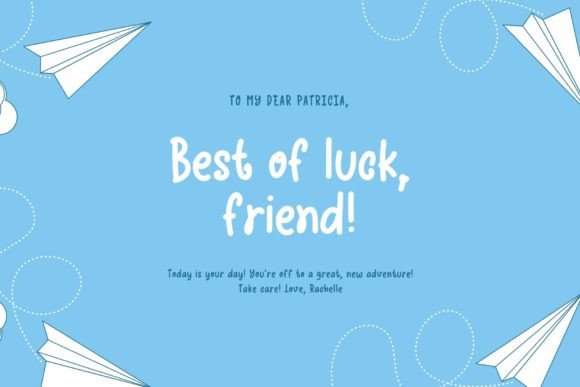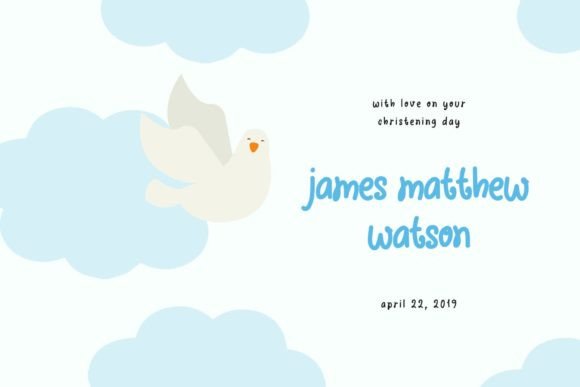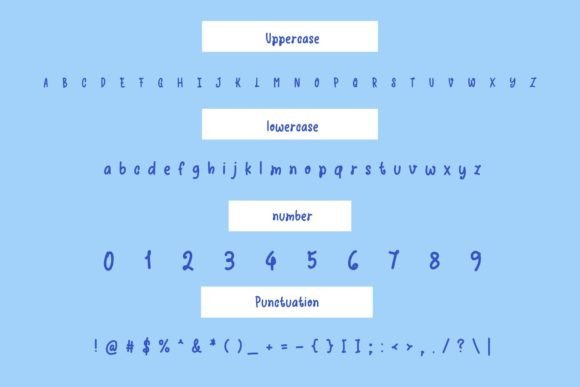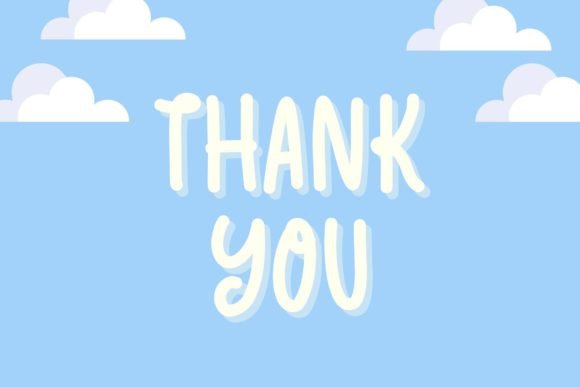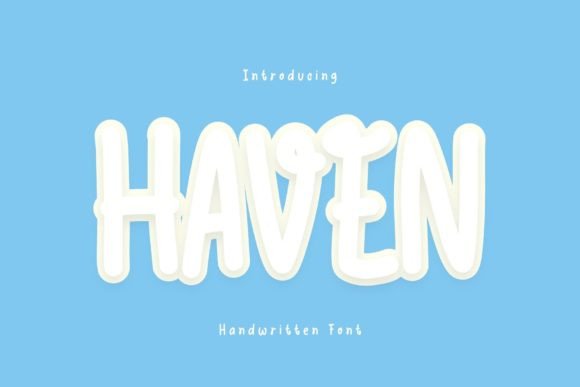
Discover the Charm of Haven Font: A Cute Handwritten Display Font
Are you looking for a font that embodies playfulness and authenticity? Look no further than Haven Font, a delightful handwritten display font that’s perfect for adding a personal touch to your designs. Whether you’re a designer, crafter, or DIY enthusiast, Haven Font is an excellent choice for a wide range of projects, from blog posts and logos to invitations, planners, and more.
The Characteristics of Haven Font
Haven Font is a beautifully crafted handwritten font that exudes a sense of whimsy and charm. Its playful and authentic feel makes it an ideal choice for designers who want to add a personal touch to their work. The font features:
- Unique letterforms: Each letter is carefully designed to be distinct and recognizable, making it perfect for headlines, titles, and short paragraphs.
- Playful feel: Haven Font has a lighthearted and carefree vibe that’s perfect for projects that require a touch of personality.
- Authentic look: The font’s handwritten feel makes it look like it was written with love and care, adding a human touch to your designs.
Uses for Haven Font
Haven Font is incredibly versatile and can be used for a wide range of projects, including:
- Blog posts: Add a personal touch to your blog posts with Haven Font, making them more engaging and readable.
- Logos and branding: Use Haven Font to create a unique and memorable logo that reflects your brand’s personality.
- Ads and marketing materials: Stand out from the crowd with Haven Font’s playful and eye-catching design.
- Invitations and greeting cards: Add a touch of whimsy to your invitations and greeting cards with Haven Font’s charming design.
- Planners and journals: Use Haven Font to create a beautiful and functional planner or journal that’s both stylish and practical.
- Photo albums and scrapbooking: Add a personal touch to your photo albums and scrapbooking projects with Haven Font’s lovely handwritten design.
- Decorations and DIY projects: Use Haven Font to add a creative touch to your DIY projects, such as signs, banners, and other decorative items.
Why Choose Haven Font?
There are many reasons why Haven Font stands out from other fonts:
- Easy to read: Despite its playful design, Haven Font is easy to read, making it perfect for both short and long paragraphs.
- Highly versatile: Haven Font can be used for a wide range of projects, from digital designs to print materials.
- Unique and distinctive: Haven Font’s charming design makes it stand out from more traditional fonts, adding a touch of personality to your work.
Tips for Using Haven Font
To get the most out of Haven Font, here are some tips:
- Use it sparingly: Haven Font is best used sparingly, such as for headlines or titles, to add a touch of personality to your design.
- Pair it with other fonts: Experiment with pairing Haven Font with other fonts to create a unique and visually appealing design.
- Experiment with colors: Haven Font looks great in a variety of colors, so don’t be afraid to experiment and find the perfect hue for your design.
Haven Font is a delightful handwritten display font that’s perfect for designers, crafters, and DIY enthusiasts. Its playful and authentic feel makes it an excellent choice for a wide range of projects, from blog posts and logos to invitations and decorations. With its unique letterforms, easy readability, and high versatility, Haven Font is sure to become a favorite in your design toolkit. So why not give it a try and see the magic it can add to your designs?